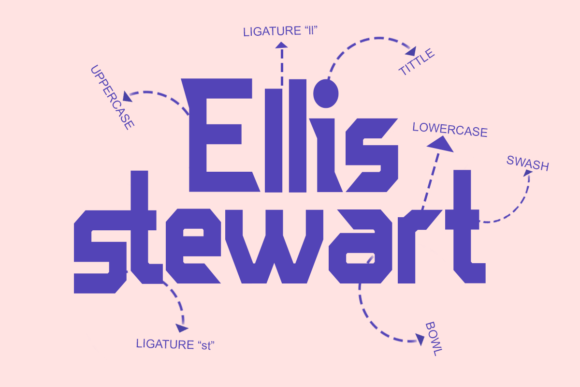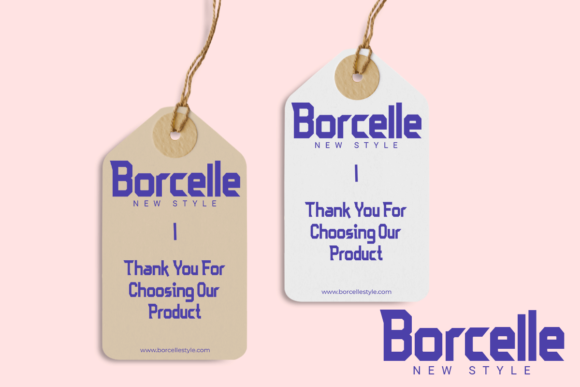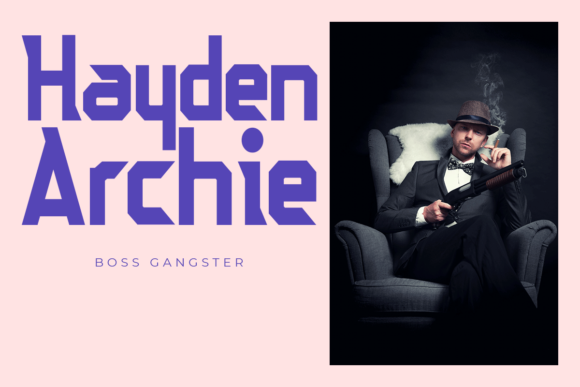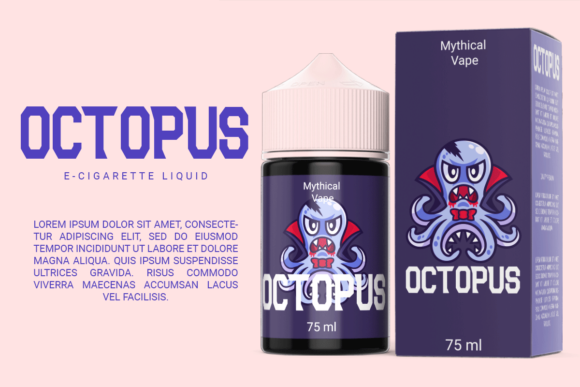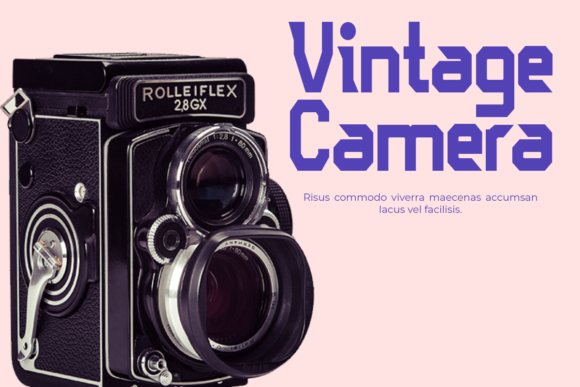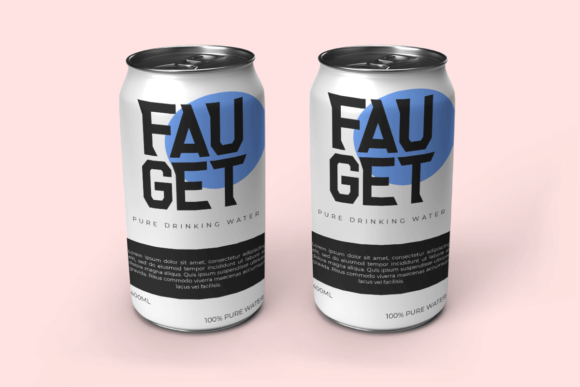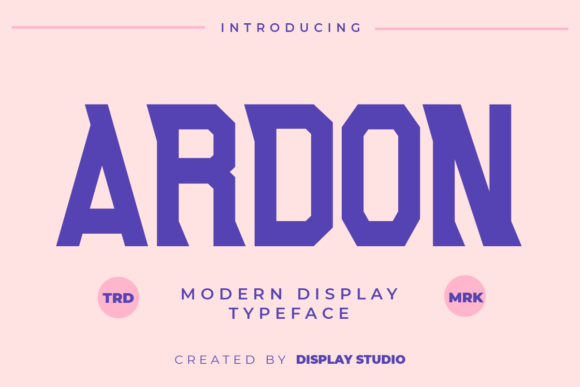
Introducing Ardon Font: The Ultimate Display Font for Bold Designs
Are you looking for a font that can add a touch of boldness and authenticity to your designs? Look no further than Ardon Font. This stunning display font is perfect for any branding project, from logos to t-shirt printing, sporting design, and more. In this article, we’ll dive into the features and benefits of Ardon Font, and explore how it can elevate your designs to the next level.
What is Ardon Font?
Ardon Font is a bold and authentic display font designed to make a statement. Its unique and eye-catching design makes it perfect for headlines, titles, and any other text that needs to stand out. The font is carefully crafted to convey a sense of confidence and energy, making it ideal for brands that want to make a bold impression.
Key Features of Ardon Font
- Bold and Authentic Design: Ardon Font features a bold and authentic design that is sure to grab attention.
- Versatile: The font is suitable for a wide range of contexts, from logos and branding to t-shirt printing, sporting design, and more.
- Easily Readable: Despite its bold design, Ardon Font is easily readable, even at smaller sizes.
- High-Quality: The font is designed with high-quality craftsmanship, ensuring that it looks great in any design.
Use Cases for Ardon Font
Ardon Font is an incredibly versatile font that can be used in a wide range of design projects. Here are some examples of how you can use Ardon Font:
- Logo Design: Ardon Font is perfect for creating bold and memorable logos that make a statement.
- T-Shirt Printing: The font’s bold design makes it ideal for t-shirt printing, where it can be used to create eye-catching designs.
- Sporting Design: Ardon Font is perfect for sporting design, where it can be used to create bold and dynamic designs for teams, leagues, and events.
- Branding: The font can be used in a wide range of branding projects, from business cards to billboards.
Benefits of Using Ardon Font
There are many benefits to using Ardon Font in your designs. Here are some of the most significant advantages:
- Stand Out from the Crowd: Ardon Font’s bold design ensures that your text stands out from the crowd, grabbing attention and making a lasting impression.
- Convey Confidence and Energy: The font’s unique design conveys a sense of confidence and energy, making it perfect for brands that want to make a bold statement.
- Easily Customizable: Ardon Font is easily customizable, allowing you to adjust the font to fit your design needs.
- High-Quality Design: The font’s high-quality design ensures that it looks great in any design, from print to digital.
Tips for Using Ardon Font
Here are some tips for using Ardon Font in your designs:
- Use it for Headlines and Titles: Ardon Font is perfect for headlines and titles, where its bold design can make a lasting impression.
- Experiment with Colors: The font looks great in a wide range of colors, so don’t be afraid to experiment and find the perfect color for your design.
- Pair it with Other Fonts: Ardon Font can be paired with other fonts to create a unique and dynamic design.
Ardon Font is a bold and authentic display font that is perfect for any branding project. Its unique design makes it stand out from the crowd, conveying confidence and energy. With its versatility, readability, and high-quality design, Ardon Font is an excellent choice for designers and crafters looking to create bold and memorable designs. Whether you’re creating a logo, t-shirt design, or sporting design, Ardon Font is sure to make a lasting impression.